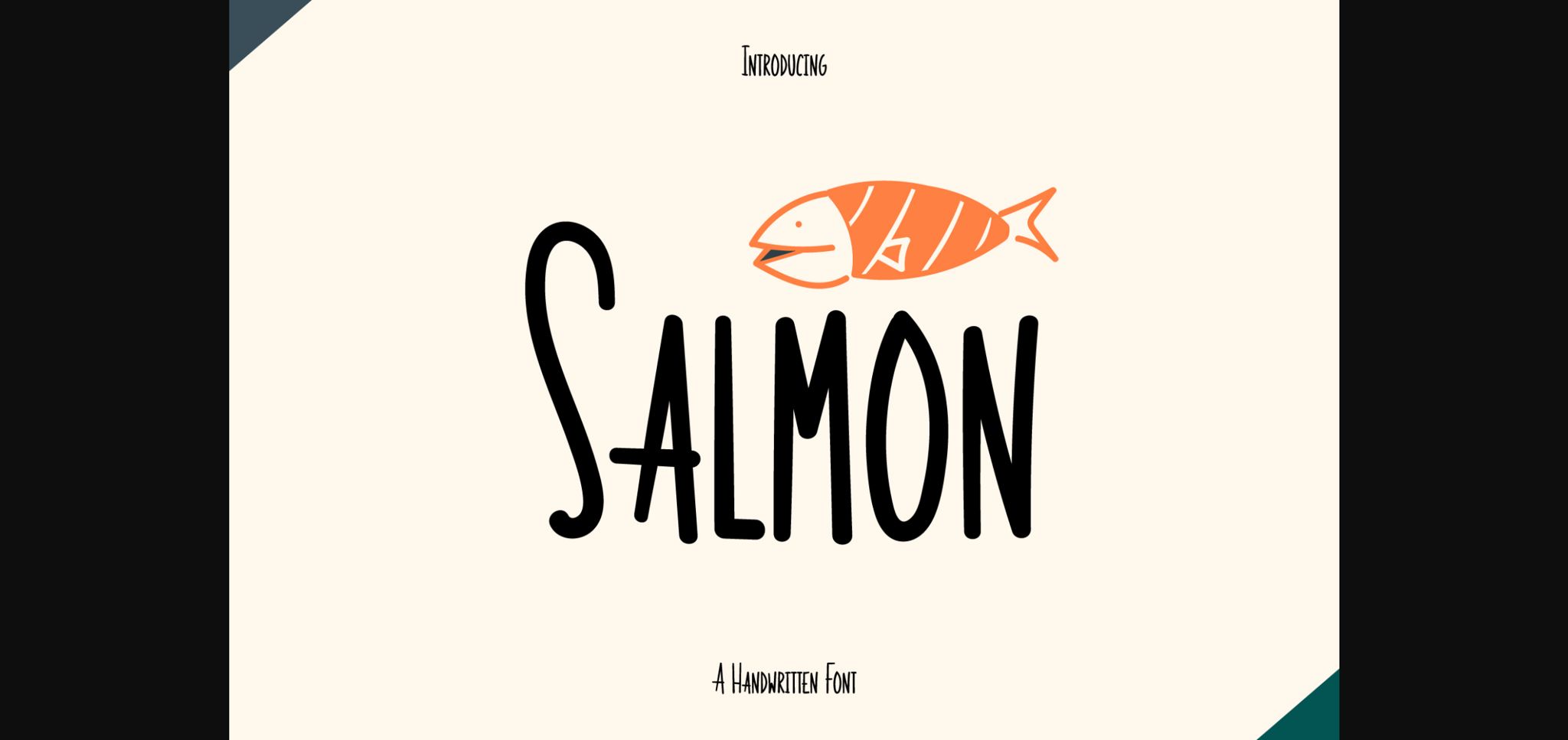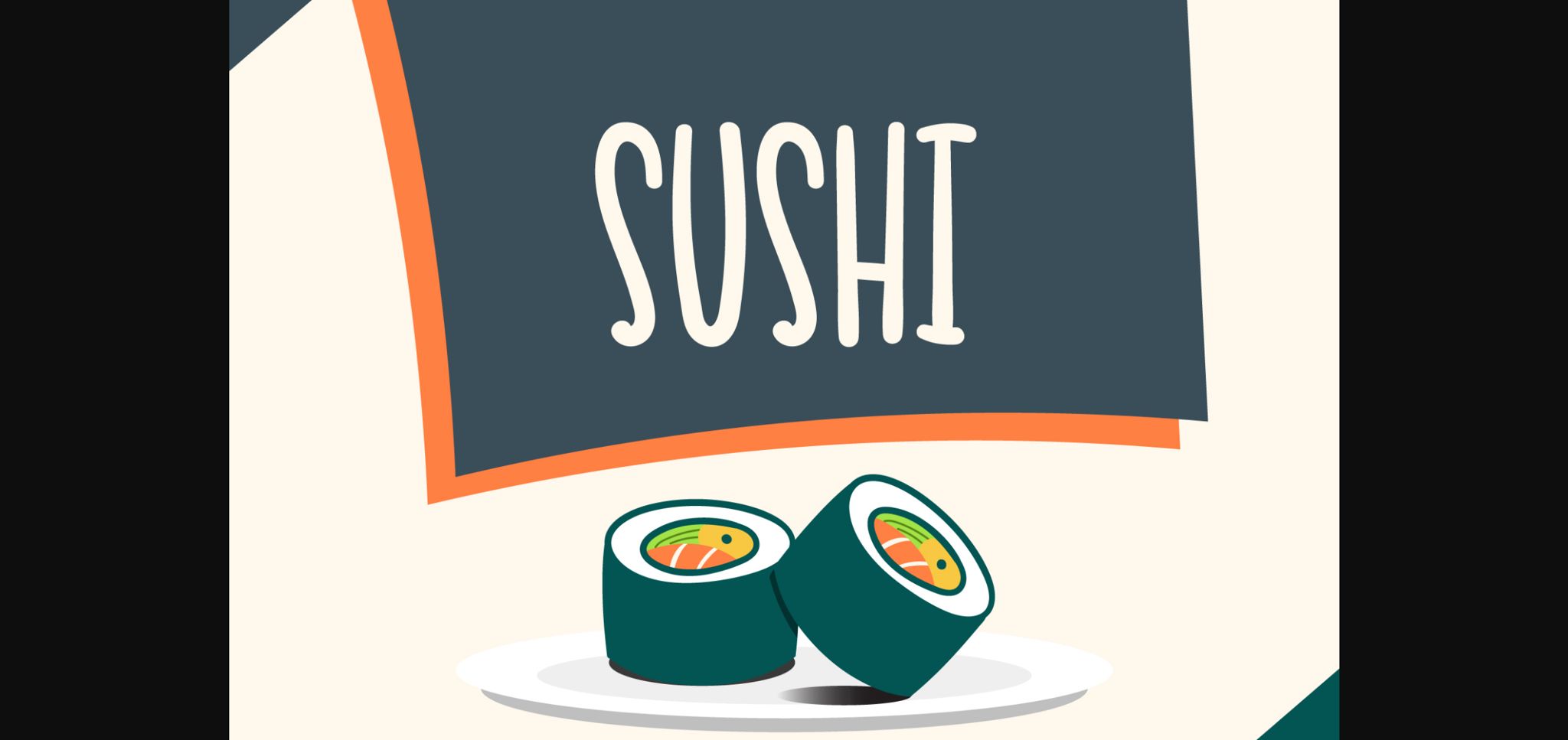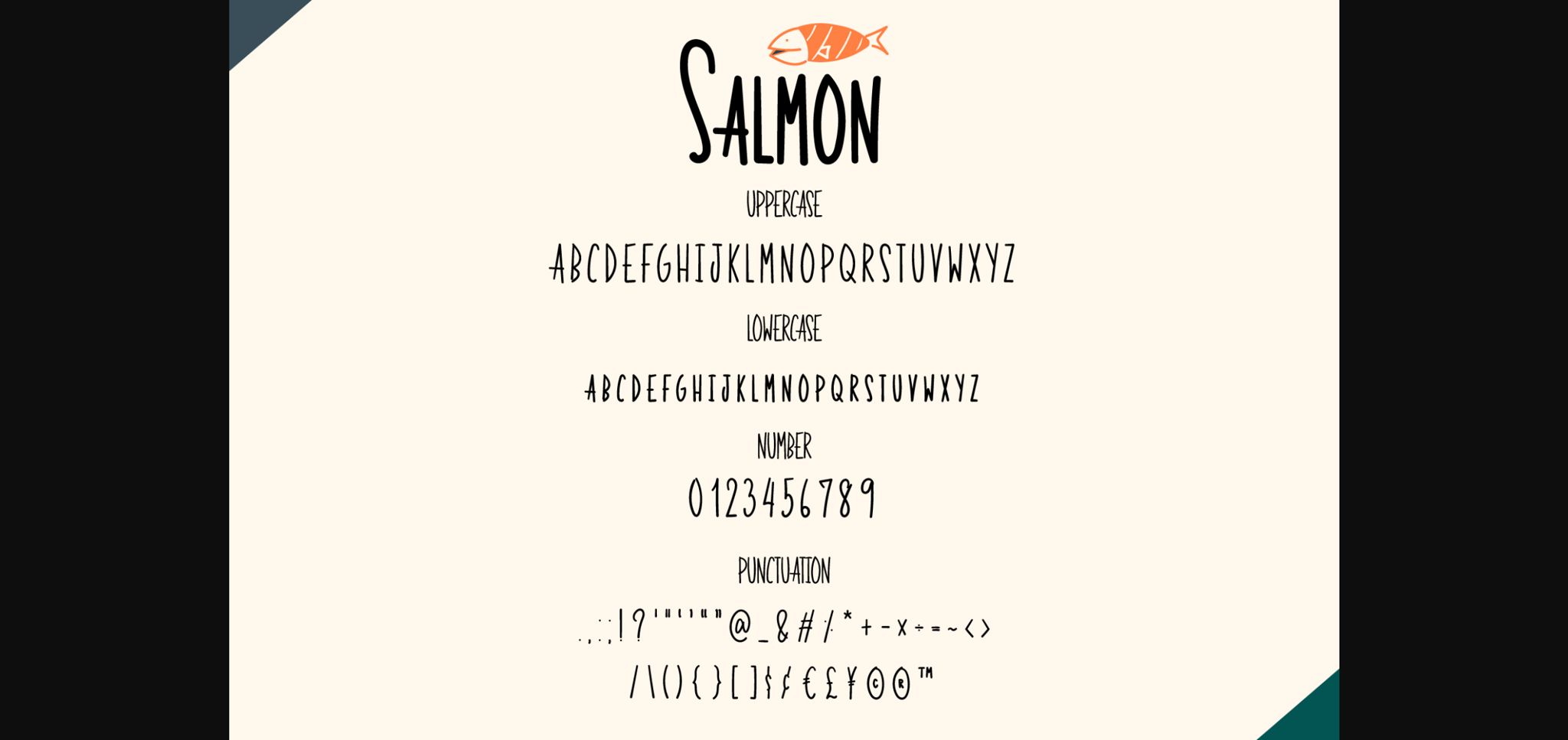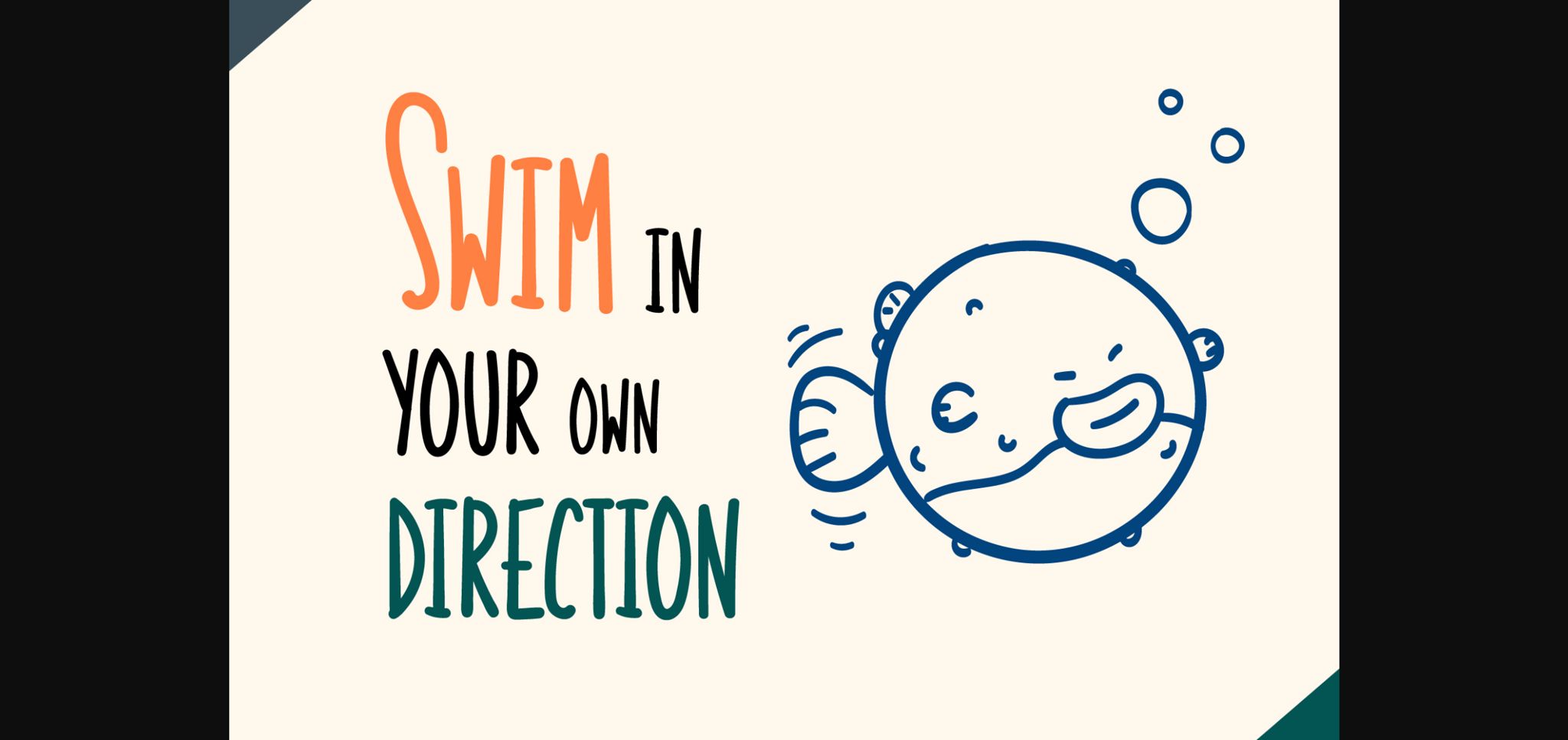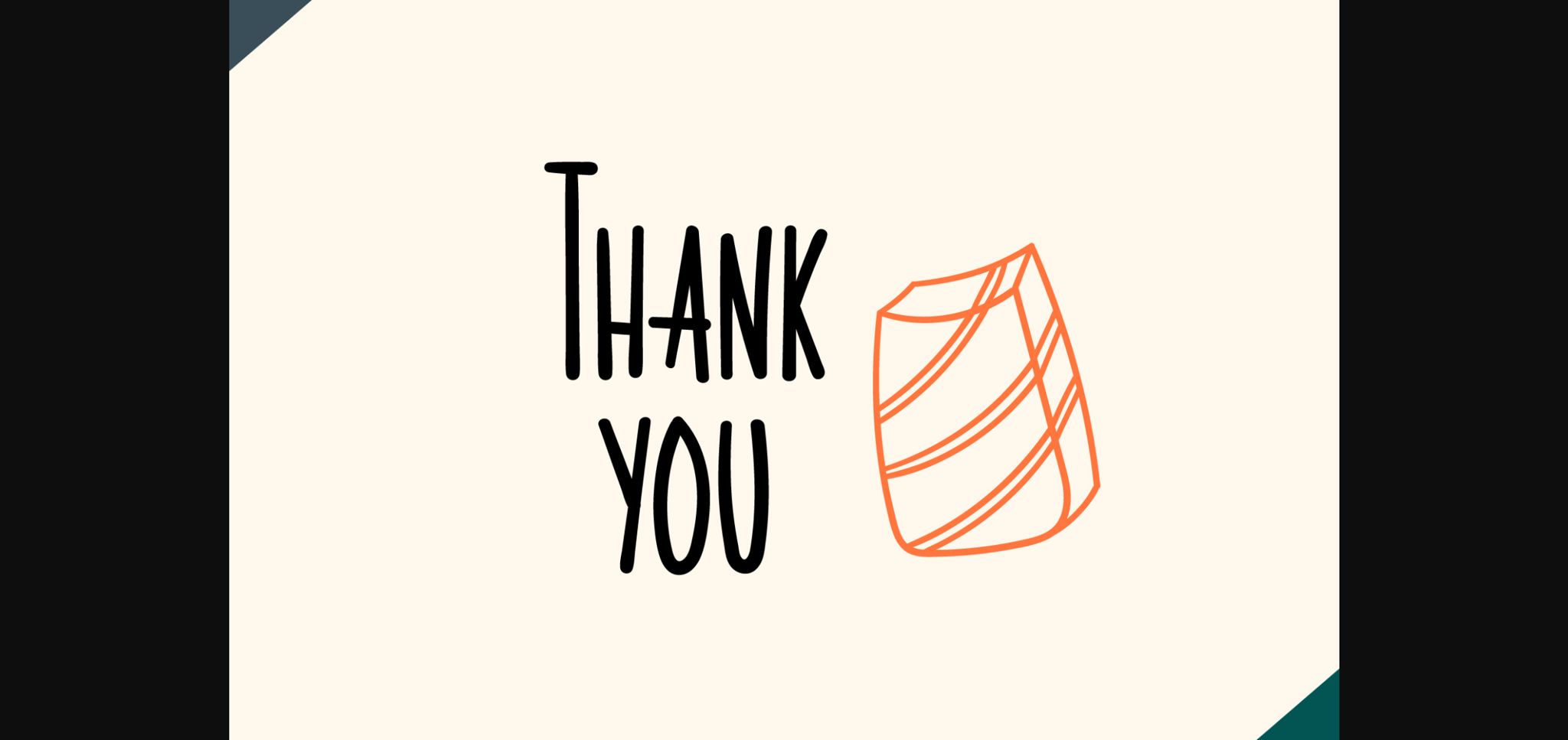
Salmon Font
About Salmon Font
Salmon stands as a testament to elegance and refinement, meticulously crafted to infuse sophistication into every design. This sans serif font possesses a unique charm that elevates any project it graces, whether it’s social media posts on Instagram or personalized calligraphy scripts for DIY enthusiasts.
What sets Salmon apart is its ability to effortlessly blend elegance with versatility. Its timeless appeal makes it suitable for a wide range of applications, from digital platforms to handmade creations. The font’s graceful curves and subtle details add a touch of luxury to every composition, ensuring that your creative ideas are transformed into true works of art.
In the realm of social media, Salmon shines as a font choice for Instagram posts, stories, and captions. Its refined appearance captures attention and adds a touch of sophistication to your feed, setting your content apart from the crowd. Whether you’re sharing personal anecdotes or promoting your brand, Salmon lends a sense of style and class to your online presence.
For DIY projects, Salmon serves as a versatile tool for adding elegance to handmade creations. Whether it’s wedding invitations, greeting cards, or personalized gifts, this font adds a touch of luxury and refinement to every piece. Its clean lines and graceful letterforms enhance the overall aesthetic, turning ordinary projects into extraordinary ones.
Salmon’s appeal extends beyond digital and handmade creations to professional settings as well. From branding materials to corporate presentations, this font exudes professionalism and class, making a lasting impression on clients and colleagues alike. Its versatility ensures that it can adapt to any design concept or branding strategy, adding a touch of elegance to every project.
Embrace the elegance of Salmon and unlock its potential to transform your creative ideas into true pieces of art. Whether you’re a social media influencer, a DIY enthusiast, or a professional designer, this font offers endless possibilities for expressing yourself with style and sophistication. With Salmon by your side, every project becomes a showcase of elegance and refinement, leaving a lasting impression on all who encounter it.